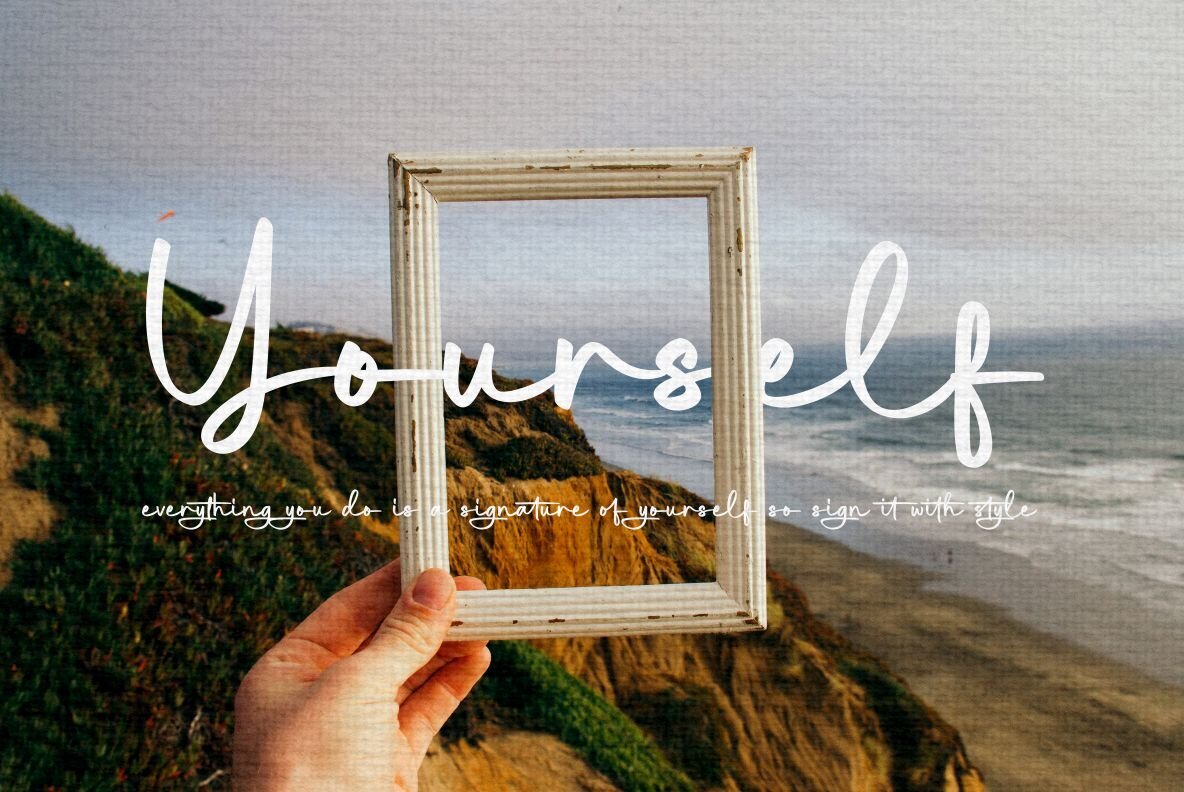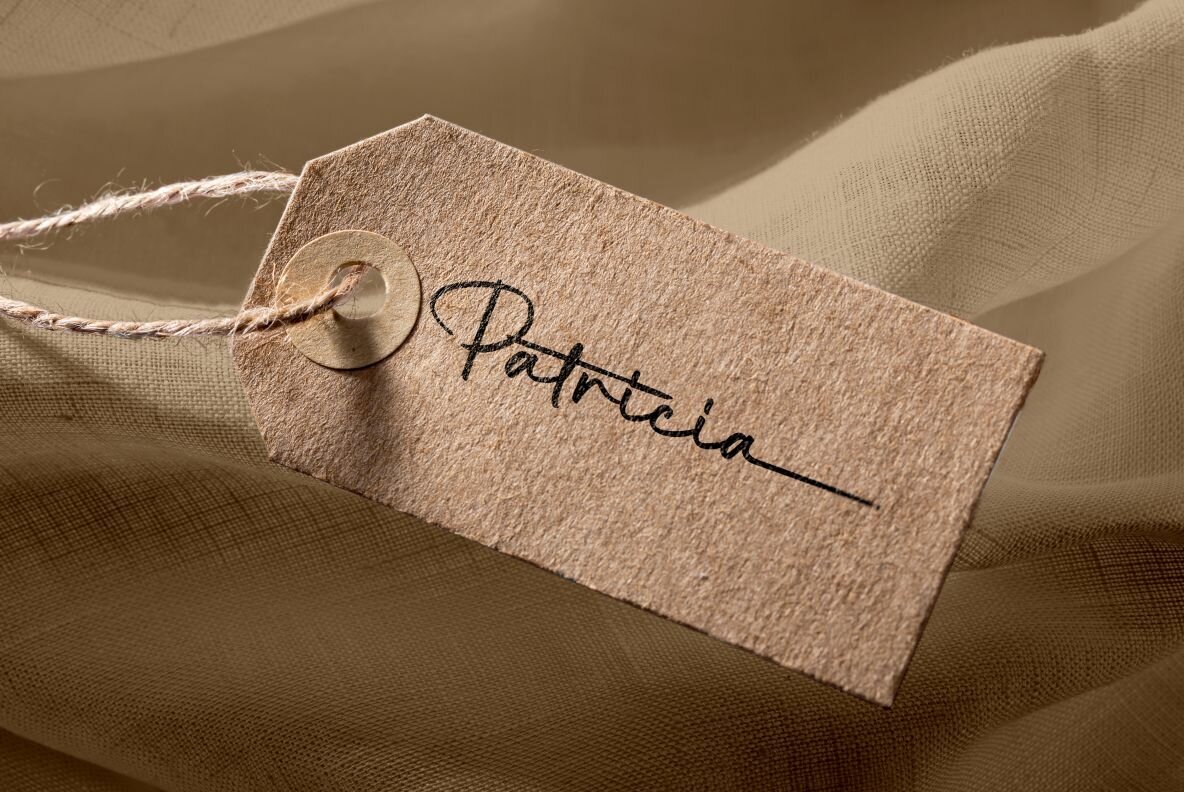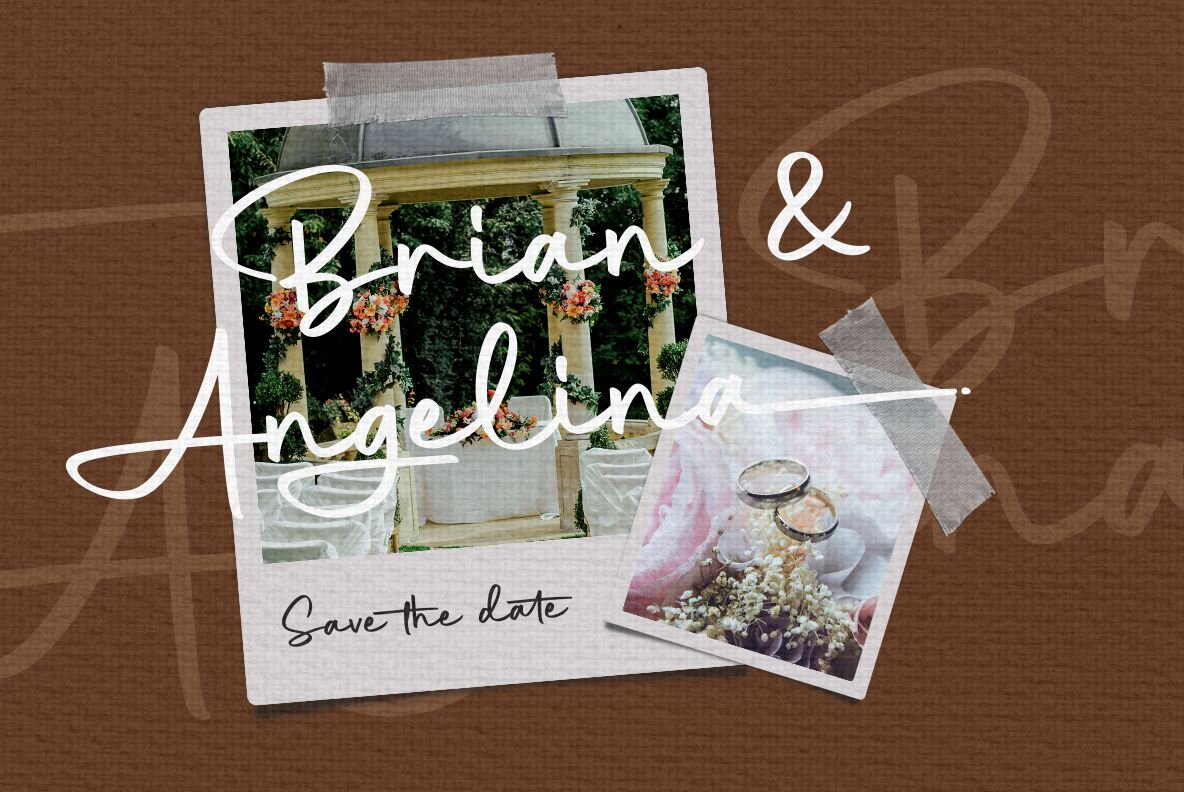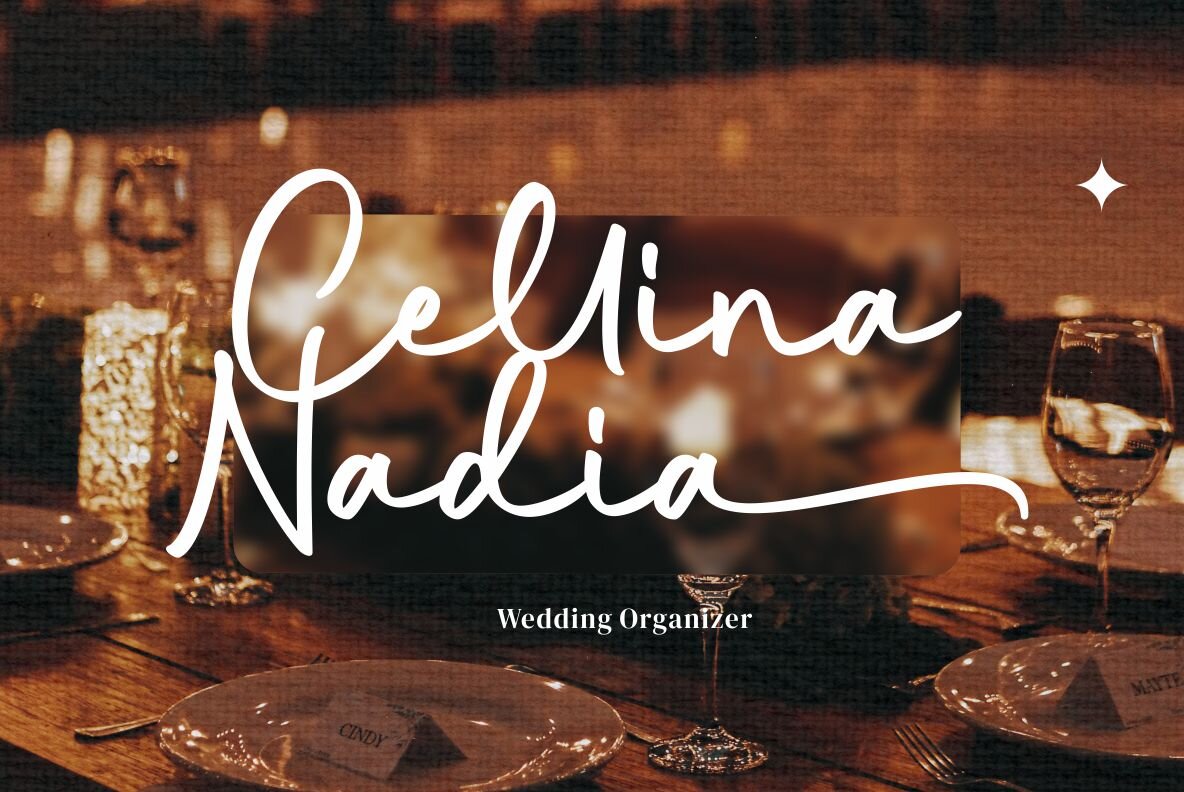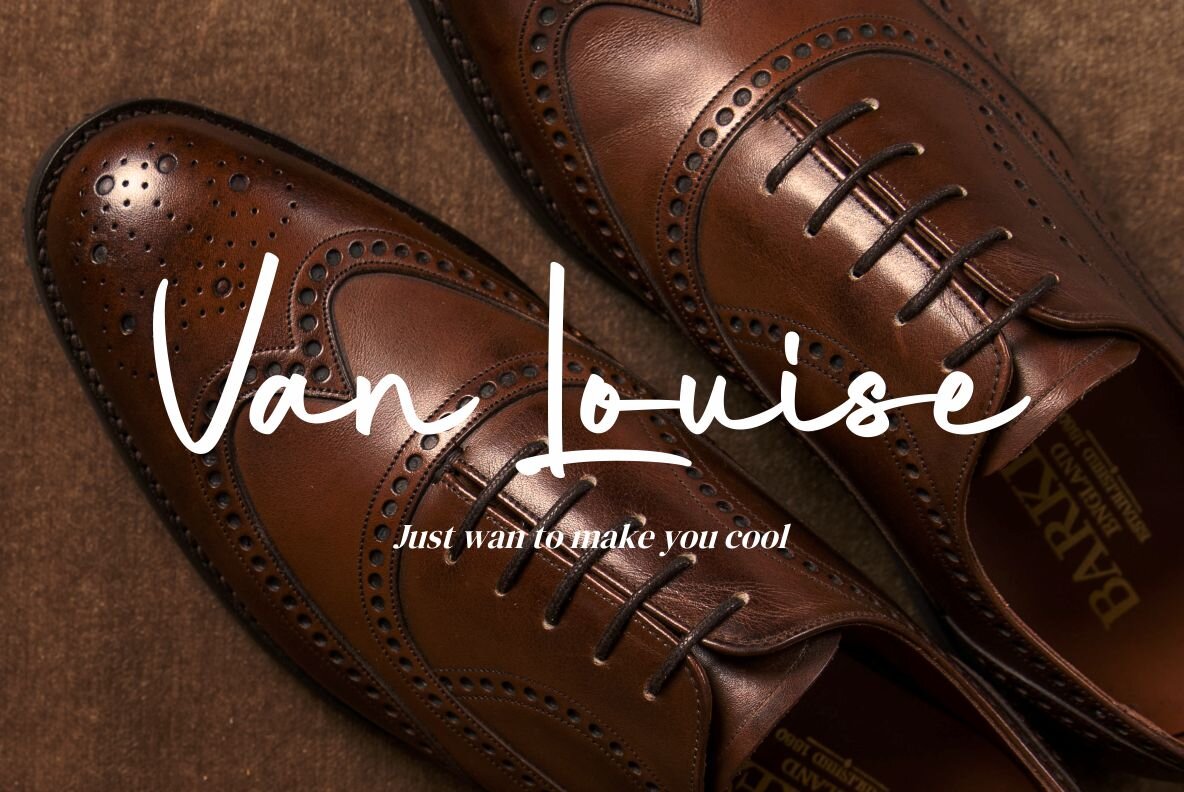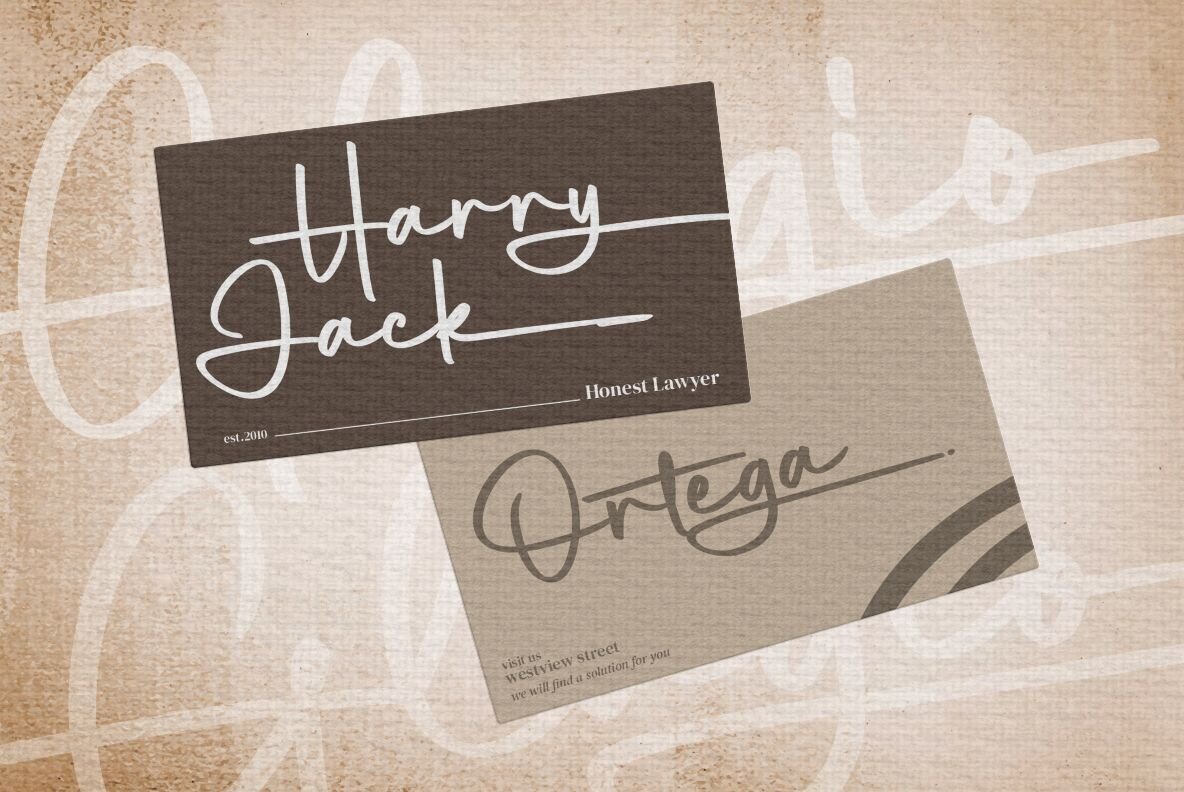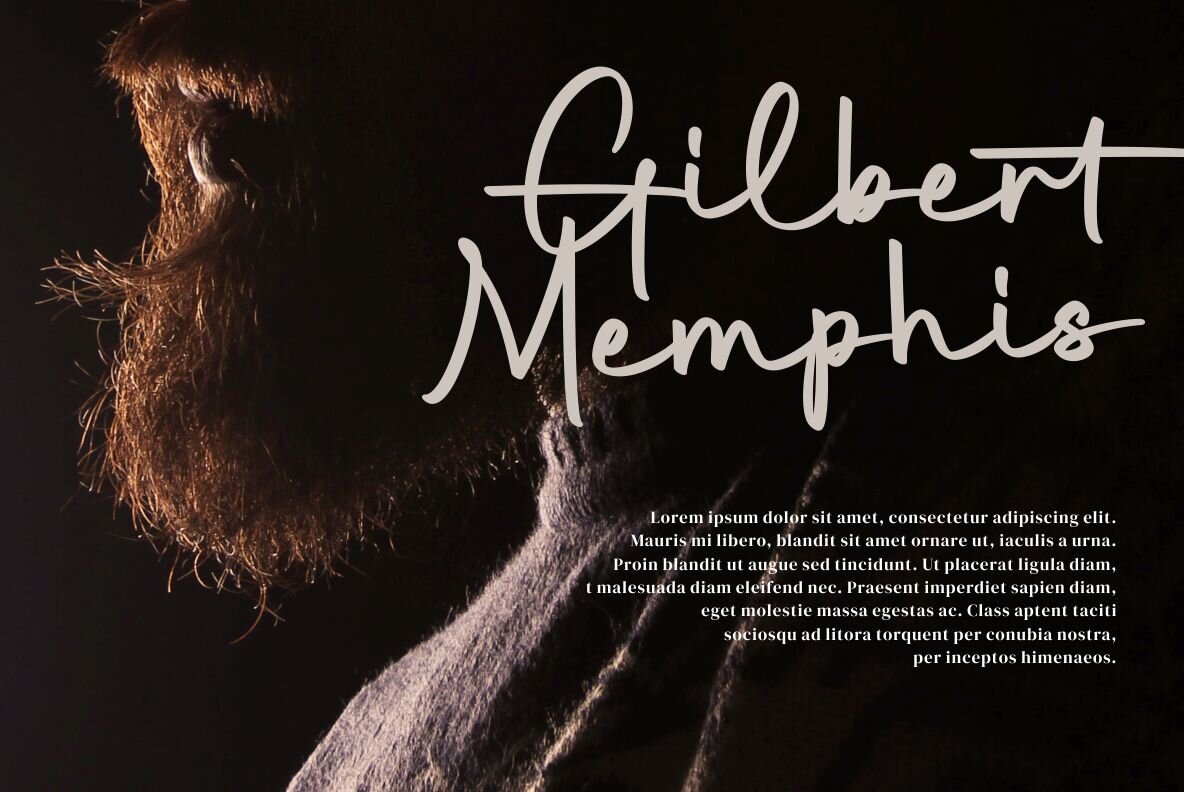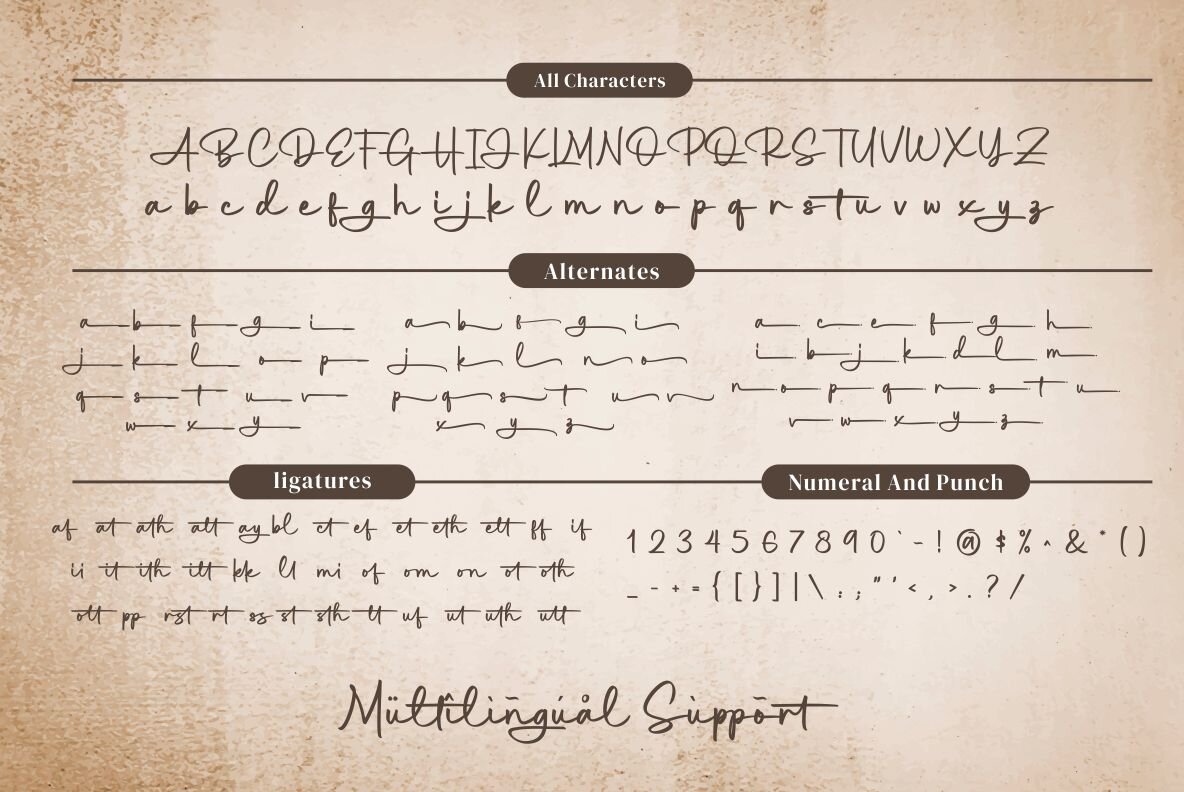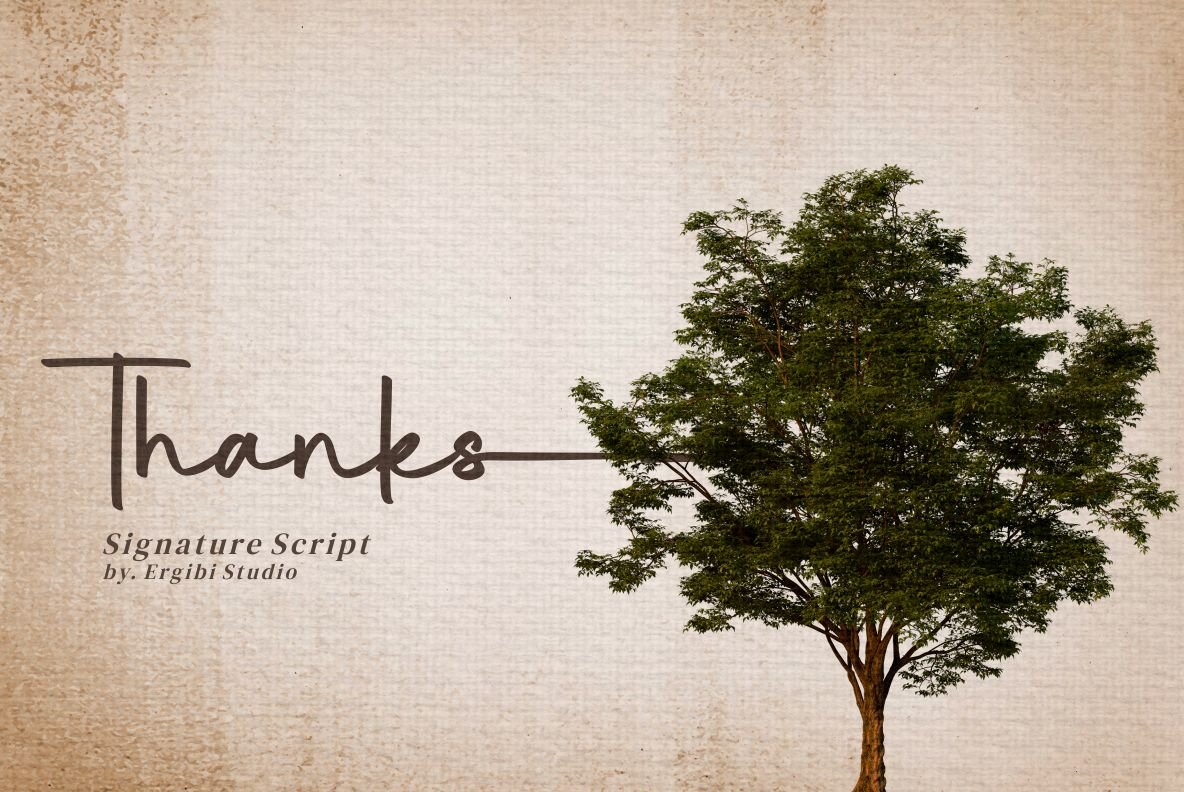
Glagio Font
Glagio Regular
Glagio is ideal for those seeking a distinctive handwritten aesthetic in logotype designs, particularly suitable for photography studios or personal brand signatures. The font offers a full set of elegantly crafted upper and lowercase letters, numbers, and various punctuation marks. Its unique lowercase end strokes add an engaging handwriting style that brings a personalized touch to any project.Glagio: The Signature Font For Handwritten Logotypes